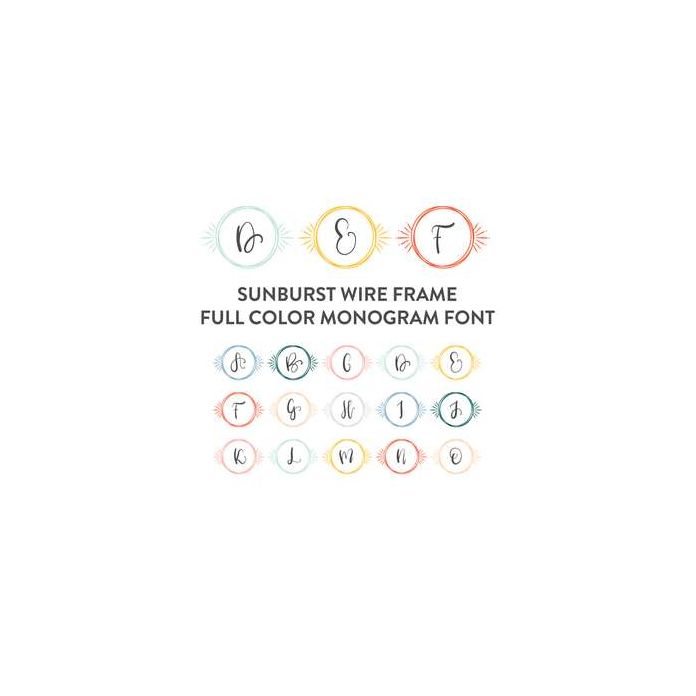
sunburst wire frame full color monogram font
this full color font comes with 26 hand drawn monogram letters set inside a sunburst style wire frame offered in a variety of complimentary colors.